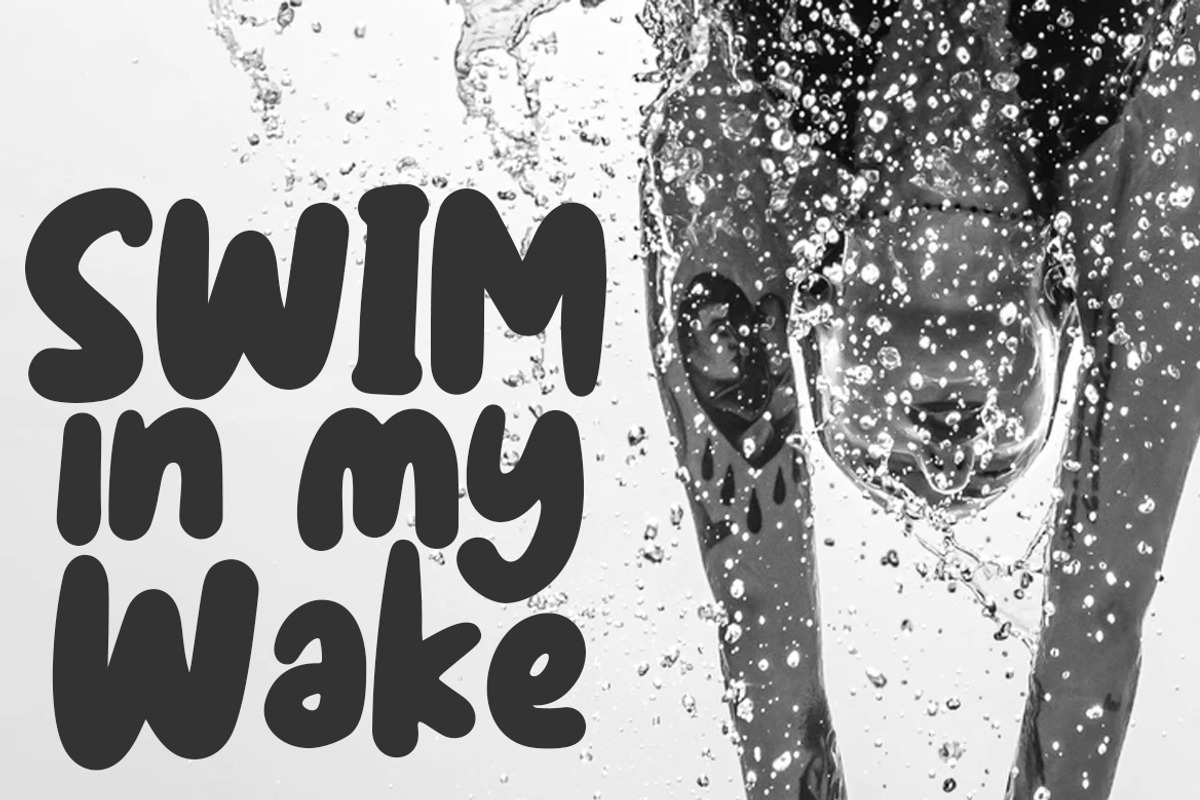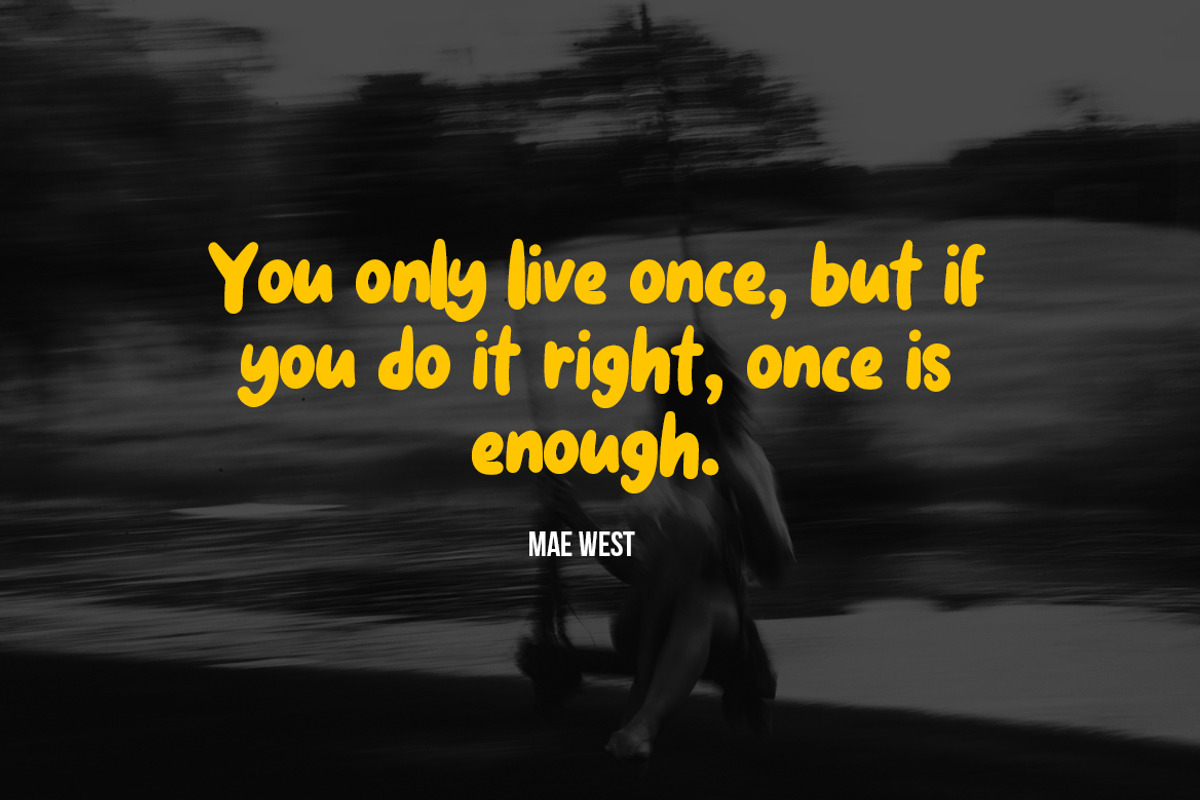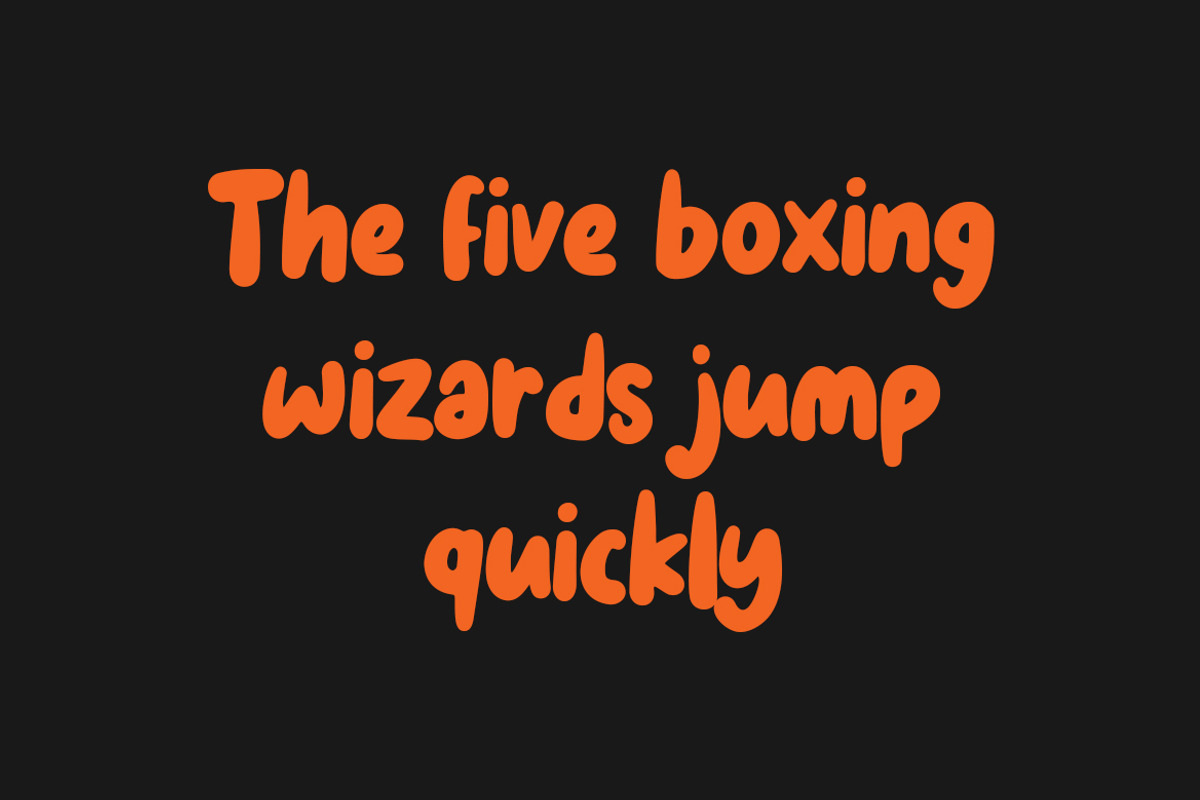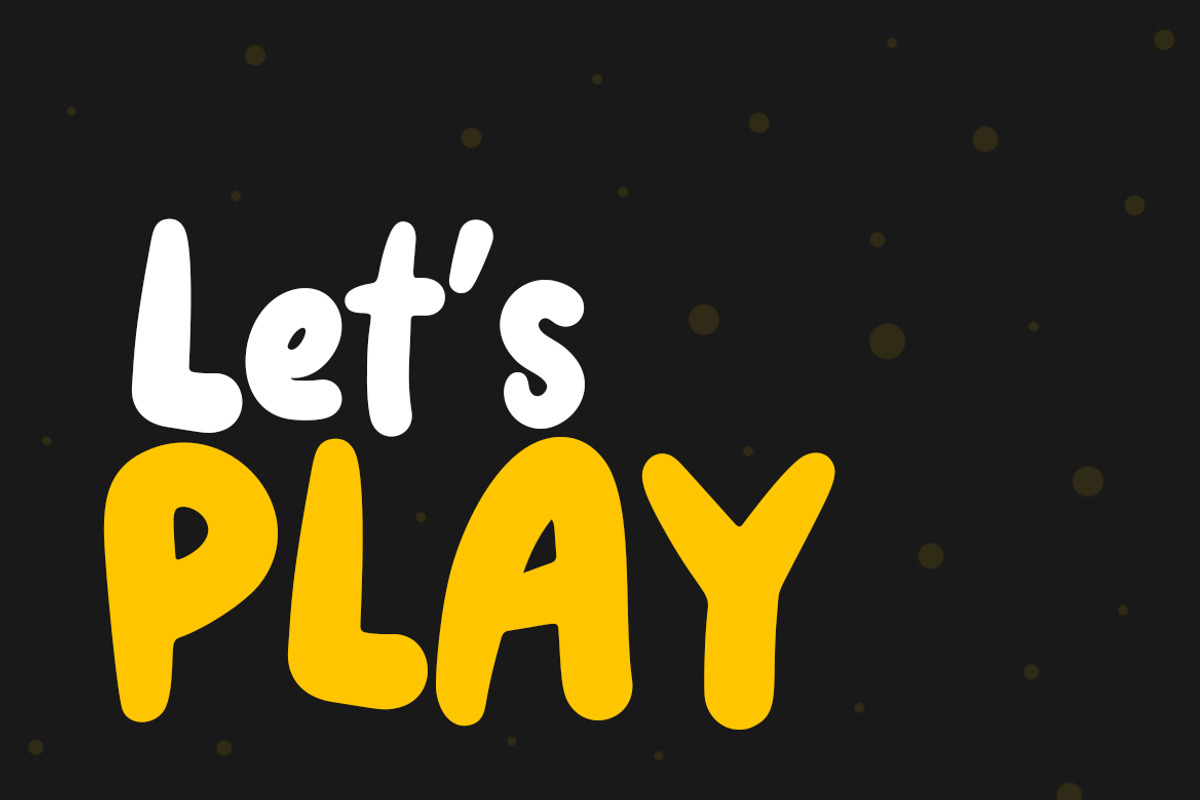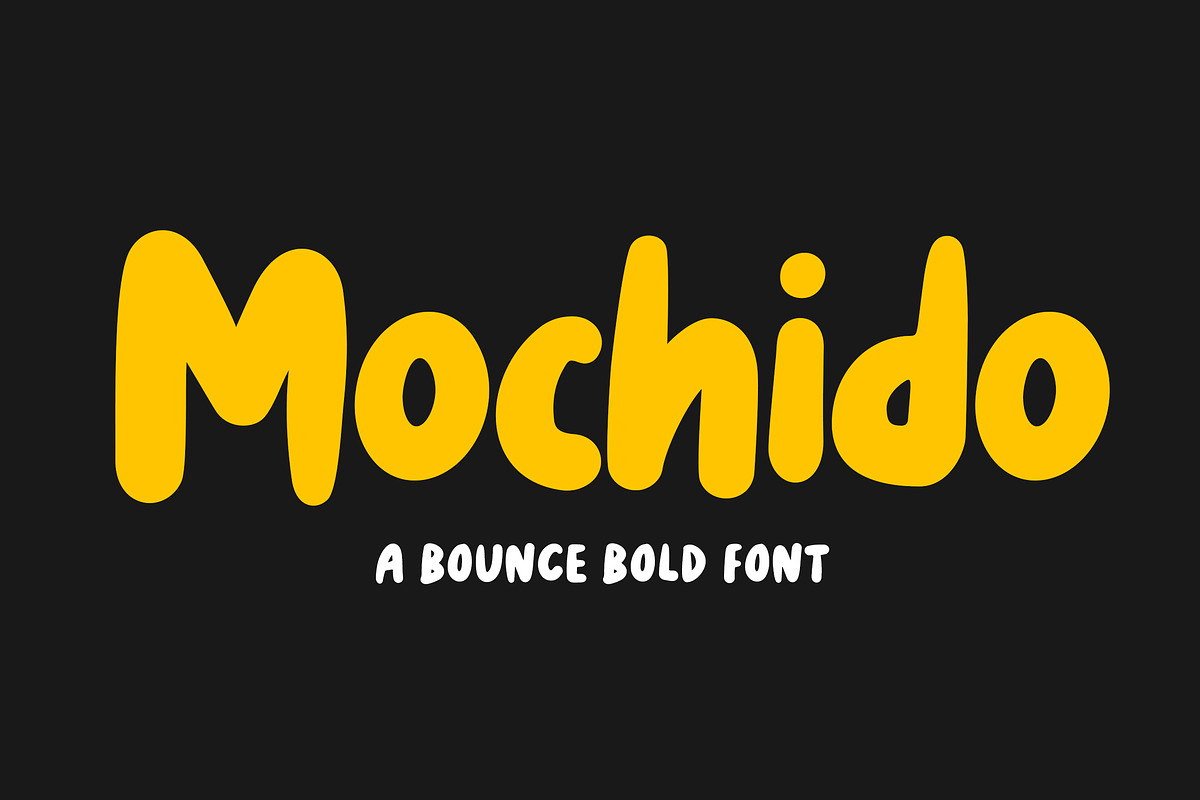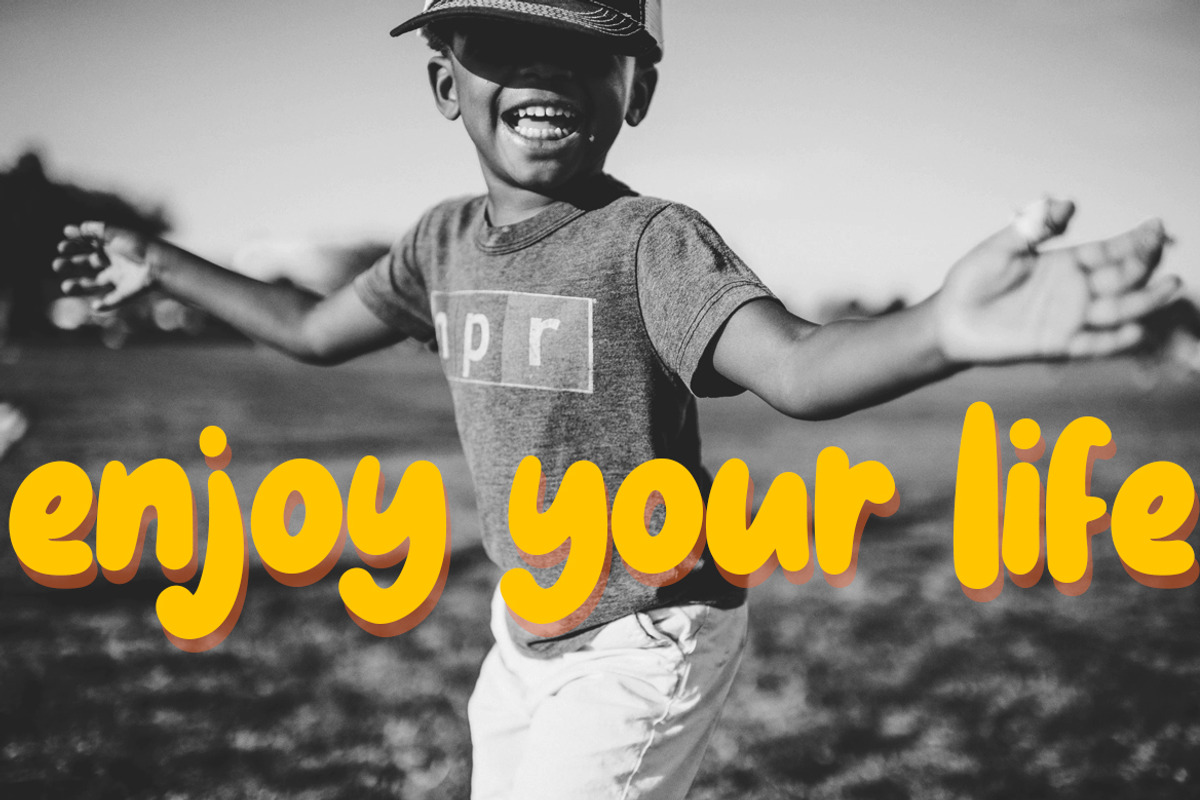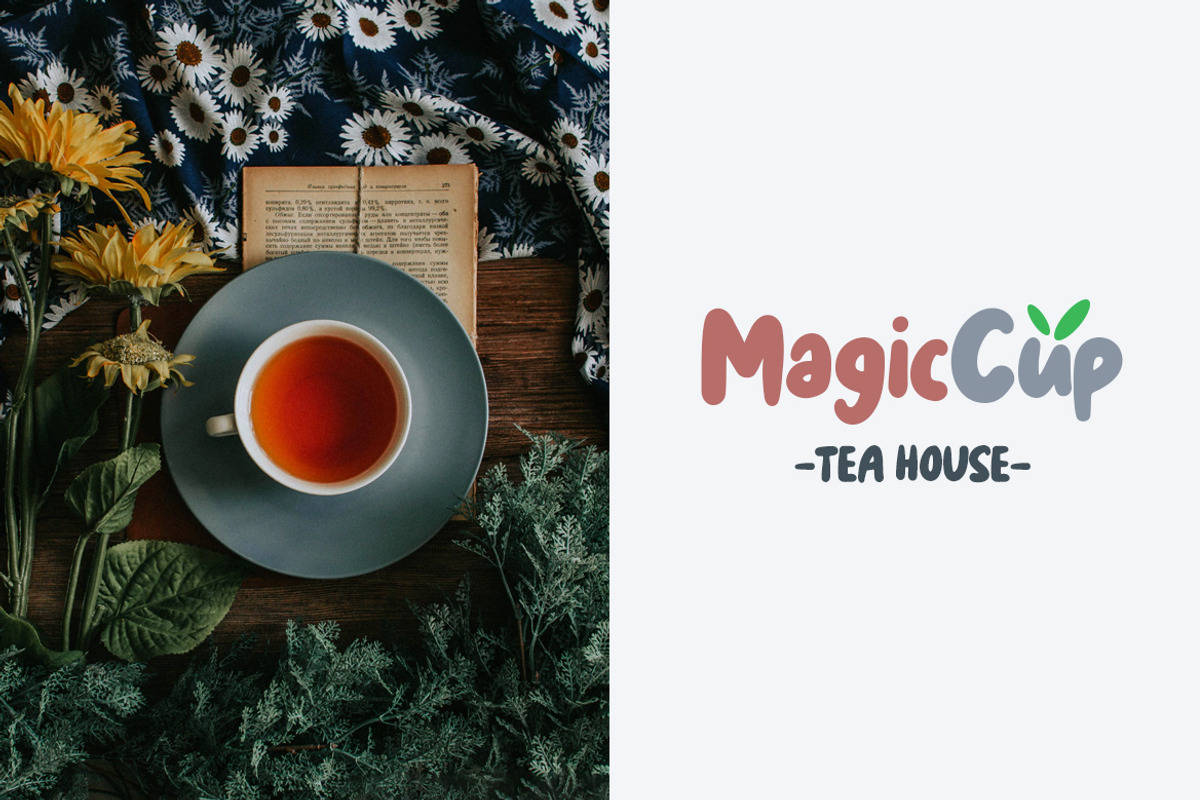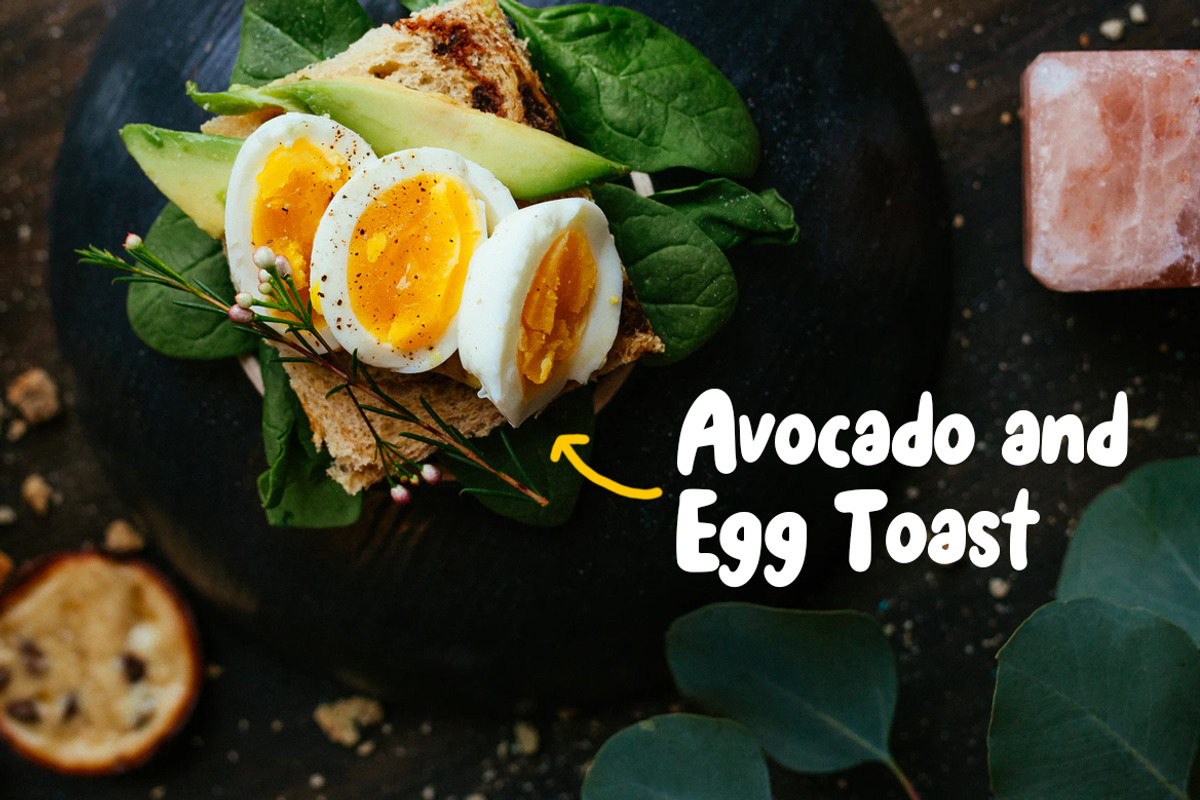
Mochido - Bounce and Bold Font
Introducing Mochido a bounce and bold font, a new handwriting font with the style of the fun bounce and bold. Which is you can create a cute and fresh design.
Mochido is very suitable for logo design, kids t-shirts, birthday cards, cover books, magazines, flyers, quotes, packaging and of course much more. This font comes in uppercase, lowercase, punctuations, symbols & numerals, ligatures, and multilingual support
Mochido - Bounce and Bold Font by Weape Studio fits naturally into Branding, posters, packaging, typography.